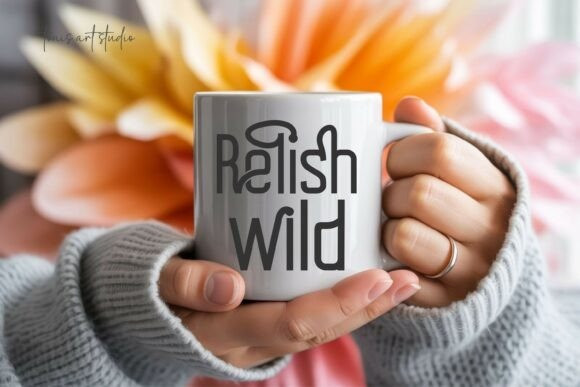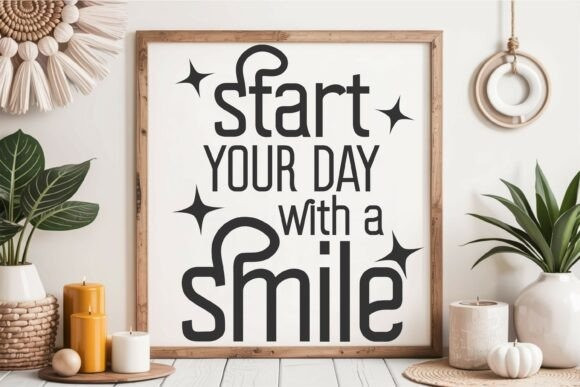
Relish Font
Relish Font – a contemporary giant with a hand-drawn sans serif facade adorned with amusing curves and swash substitutes. It’s an ideal choice for everything from artsy quotes and homemade crafts to high-impact brand identity, chic t-shirts or delightful coffee mugs. The delightful Relish Font ushers in a full set of upper and lower case letters, numbers, symbols, along with a rich range of multilingual support and exclusive ligatures like sh, sw, sf, wi. It offers a cheerful kick to your design aesthetics while keeping a clean, adaptable demeanor. Ideal for Cricut users or established designers, Relish Font is destined to be your new favourite when aiming for stylish, attention-grabbing text. Conveniently available in OTF and TTF file formats, this font is interoperable with various design software like Cricut Design Space, Silhouette Studio, Canva, Adobe Illustrator and more. Evoke the joy of creative height and let your designs gleam with Relish Font!